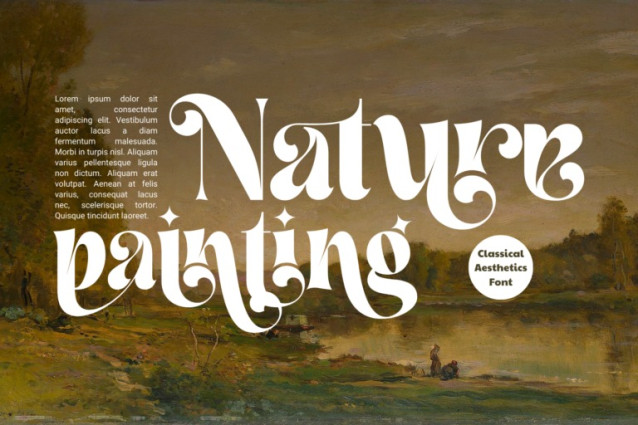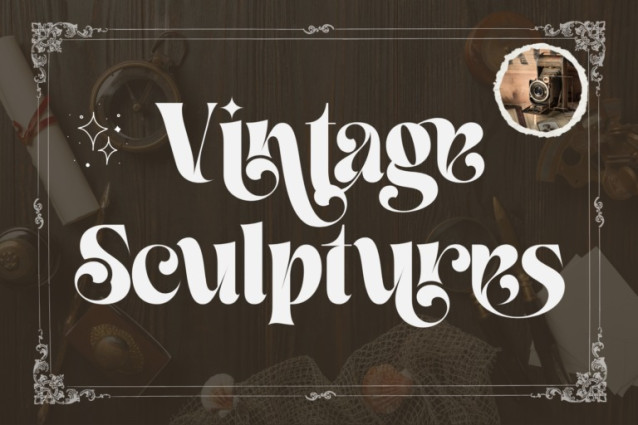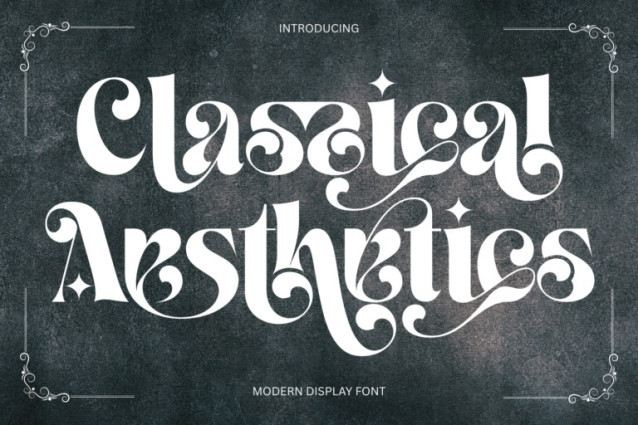
Classical Aesthetics Font
Classical Aesthetics – Ligatures Modern Font: An Ornate & Artistic Modern Display Font, a highly decorative and captivating Modern Display font designed to make a bold visual statement. Inspired by intricate artistic styles, this font features elaborate curves, flowing swashes, and ornate details woven directly into each letterform. Classical Aesthetics exudes a unique blend of vintage charm and modern flair.
Perfect for eye-catching headlines, distinctive logos, artistic posters, album covers, creative branding, and any design project where you want the typography to be a centerpiece. Its bold presence and decorative nature ensure your text stands out with unparalleled style.
Uppercase & Lowercase Letters: A full set of intricately designed characters.
~100 Special Ligatures: Elevate your designs with numerous unique ligatures that provide seamless connections and an extra decorative touch.
Numerals & Punctuation: A complete set styled to perfectly complement the font’s ornate aesthetic.
Accented Characters: Comprehensive multilingual support with a wide array of accented characters included.
About 100 ligatures combined with Stylistic Alternates Font: